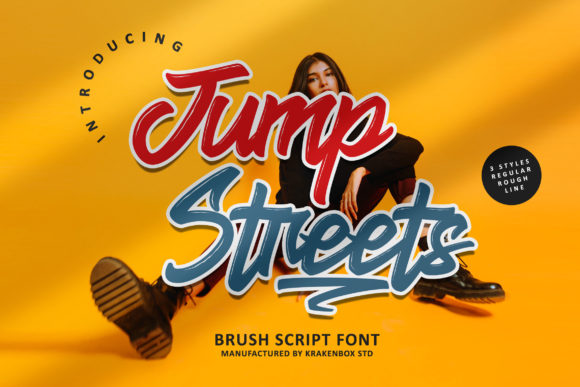
Jump Streets Script: A Versatile Handcrafted Font
Jump Streets Script is a handcrafted script brush font that brings a personal and artistic touch to any design project. With its three distinct styles—Regular, Rough, and Line—this font offers flexibility for a wide range of creative applications. Whether you're designing a logo, crafting social media content, or creating an album cover, Jump Streets Script can elevate your work with its unique texture and character.
Understanding Jump Streets Script
Jump Streets Script is more than just a font; it's a tool that allows designers to express creativity through typography. The Regular style provides a clean and elegant look, making it ideal for branding and magazine layouts. The Rough style adds a sense of spontaneity and energy, perfect for advertisements and promotional materials. Meanwhile, the Line style offers a minimalist approach, suitable for modern designs and digital interfaces.
Why Different Audiences Care About Jump Streets Script
For beginners, Jump Streets Script can be a great starting point in learning about typography and how different fonts can influence the overall look of a project. Its user-friendly nature makes it easy to experiment with without feeling overwhelmed by complexity.
Experienced users may appreciate the versatility of Jump Streets Script. It allows them to create distinctive visuals that stand out from generic sans-serif or serif fonts. This can be especially valuable for professionals in the fashion and apparel industries who need to maintain a cohesive brand identity across various platforms.
Creators and entrepreneurs might find Jump Streets Script useful for building a strong visual presence on social media. The font’s dynamic feel can help capture attention and convey a sense of authenticity, which is crucial for engaging audiences in today's fast-paced digital environment.
How Different Users Can Benefit From Jump Streets Script
For educators, Jump Streets Script could be used as a teaching aid to demonstrate how typography affects readability and aesthetics. Incorporating this font into lesson plans can help students understand the importance of choosing the right font for their message.
Business owners looking to rebrand or launch a new product may find Jump Streets Script helpful in creating eye-catching logos and marketing materials. The font’s adaptability ensures it can fit both high-end and casual branding needs, making it a valuable asset for small businesses aiming to make a lasting impression.
Hobbyists and consumers who enjoy DIY projects can use Jump Streets Script to personalize items such as t-shirts, posters, or greeting cards. Its handcrafted appearance adds a unique flair that can make homemade gifts or decor feel more special and meaningful.
Practical Examples for Various Readers
A blogger working on a lifestyle website might use the Regular style of Jump Streets Script for headings and titles to give their content a more inviting and stylish appearance. This subtle change can enhance the reader experience and encourage longer engagement with the blog.
A graphic designer working on an album cover could opt for the Rough style to add a sense of movement and raw energy to the artwork. This choice would align well with music genres that emphasize emotion and intensity, helping to create a visual representation that resonates with the audience.
An entrepreneur launching a new clothing line might choose the Line style for packaging and labels. Its simplicity and clarity ensure that product information is easily readable while still maintaining a modern and sophisticated look that appeals to a broad customer base.
Evaluating Jump Streets Script Based on Priorities
When considering whether Jump Streets Script fits your needs, it's important to evaluate it based on your priorities. If ease of use is a top concern, the font's straightforward application and availability in multiple styles make it accessible for users at all skill levels.
Cost is another factor to consider. While Jump Streets Script may have a price tag, its quality and versatility often justify the investment, especially for those who rely heavily on typography for their professional work.
Quality and presentation are also key considerations. The handcrafted nature of Jump Streets Script ensures that it stands out visually, which can be a significant advantage for anyone looking to create memorable designs that leave a lasting impact.
For those focused on long-term usefulness, Jump Streets Script offers a timeless appeal that can be applied to various projects over time. Its ability to adapt to different contexts means it remains relevant and effective even as trends evolve.